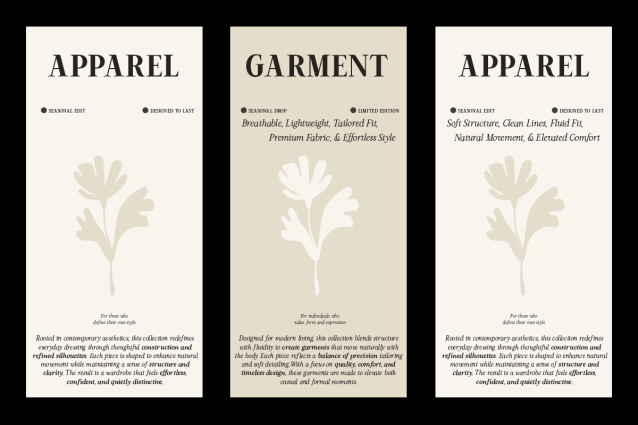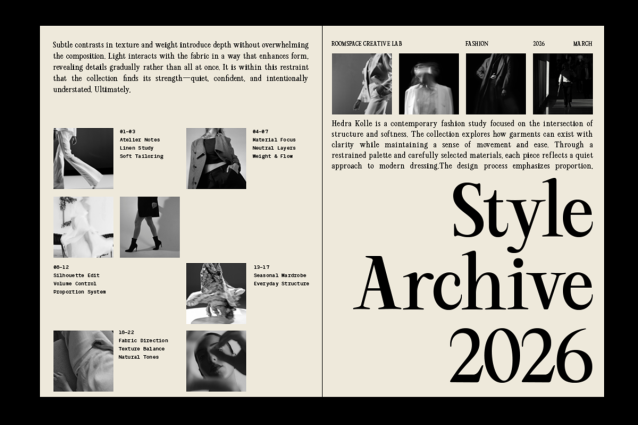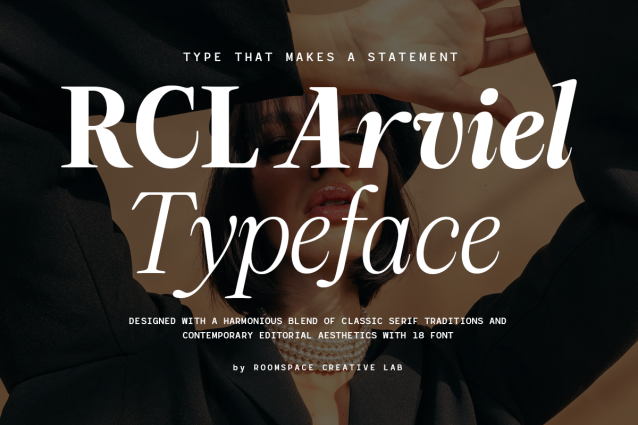
RCL Arviel Font
RCL Arviel Font is a modern serif typeface crafted to create strong visual impact through elegant contrast and expressive form. Defined by its sculpted serifs, dynamic curves, and editorial character, Arviel balances classical sophistication with contemporary boldness. With 18 weights available, this serif family offers flexibility for both dramatic headlines and refined layouts. It is designed for designers who want to create powerful branding, fashion visuals, and high-end editorial compositions.